Introducing "AI JIMOJI" from the experimental virtual city "MOJICITY", which opened on January 23rd (Sun) to create a world where you can freely enjoy your own fonts!
"AI JIMOJI" is a service that automatically generates the only original font in the world by AI when 46 hiragana characters are handwritten (prototype version). Generated characters are hiragana, katakana, and double-byte alphabet.
I actually created an original font, so if you haven't tried it, please try making it together ♪
How to make the only original font "AI JIMOJI" in the world
first" MOJICITY” and Locations the red “AI JIMOJI”.
Read the instructions and click the START button to move to the handwriting input screen.
Enter quickly by hand...
I'm done!
The square frame is the standard for the size of the characters, so if you fill the frame, the size of the characters will be larger, and if you leave more space, the size of the characters will be smaller.
It looks interesting even if it's a quirky character! Since there is a "rewrite" button, you can also stick to your heart's content.
After entering the handwritten characters, click the "Send" button.
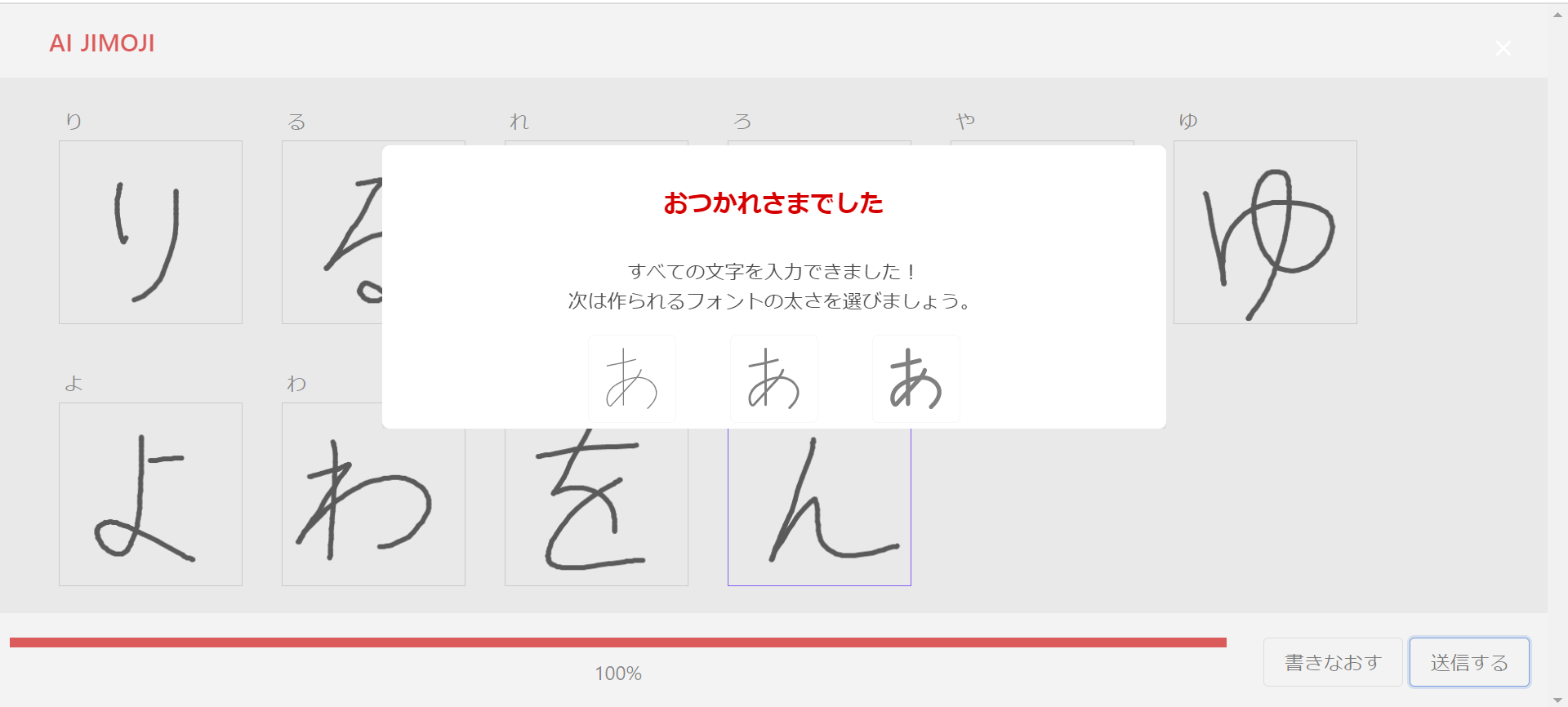
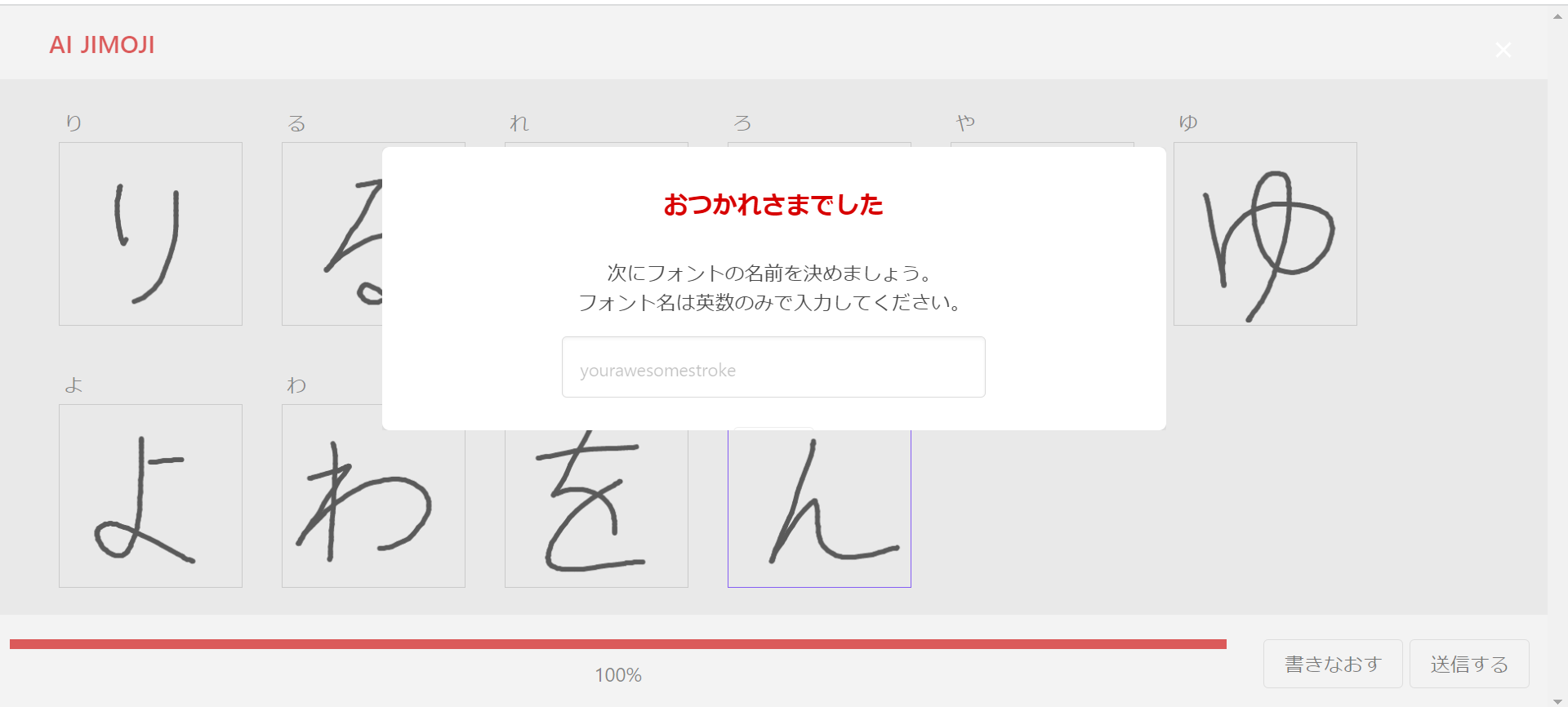
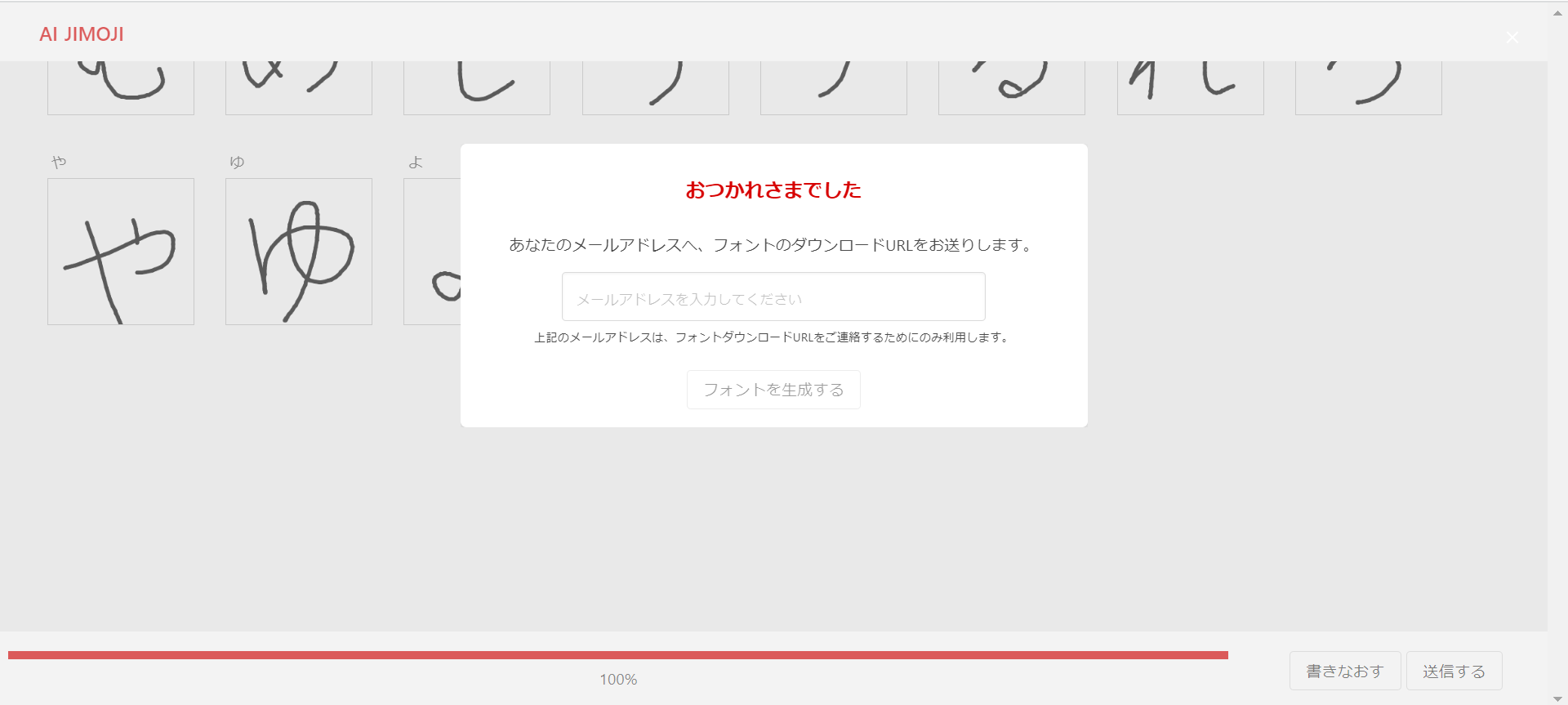
Select "Select font Weight" and enter your original "Font name".
Completion of the original font
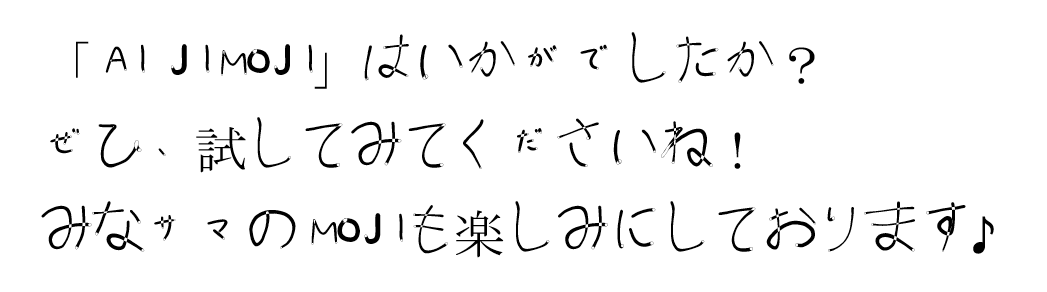
Being able to use your own handwriting on the web is a refreshing feeling.
If you use the app, you can easily apply it to images and videos on your smartphone, so it seems to be useful on SNS!
Please enjoy the one and only original font in the world♪